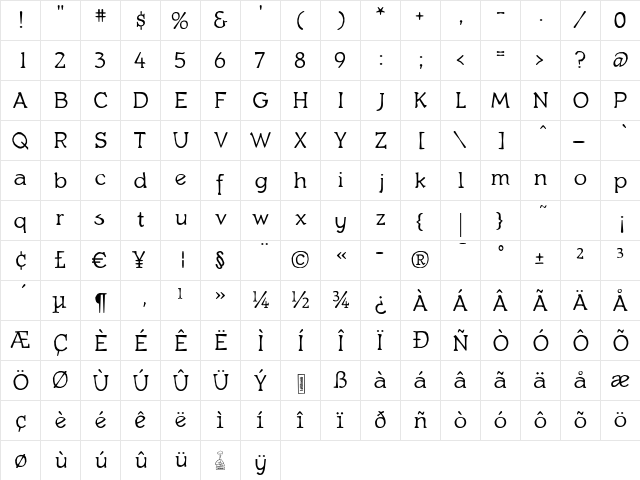
Quasymodo Regular
Design Context for Quasymodo Typeface
Quasymodo is a composed and adaptable typeface that performs quietly and consistently across a wide range of design contexts.